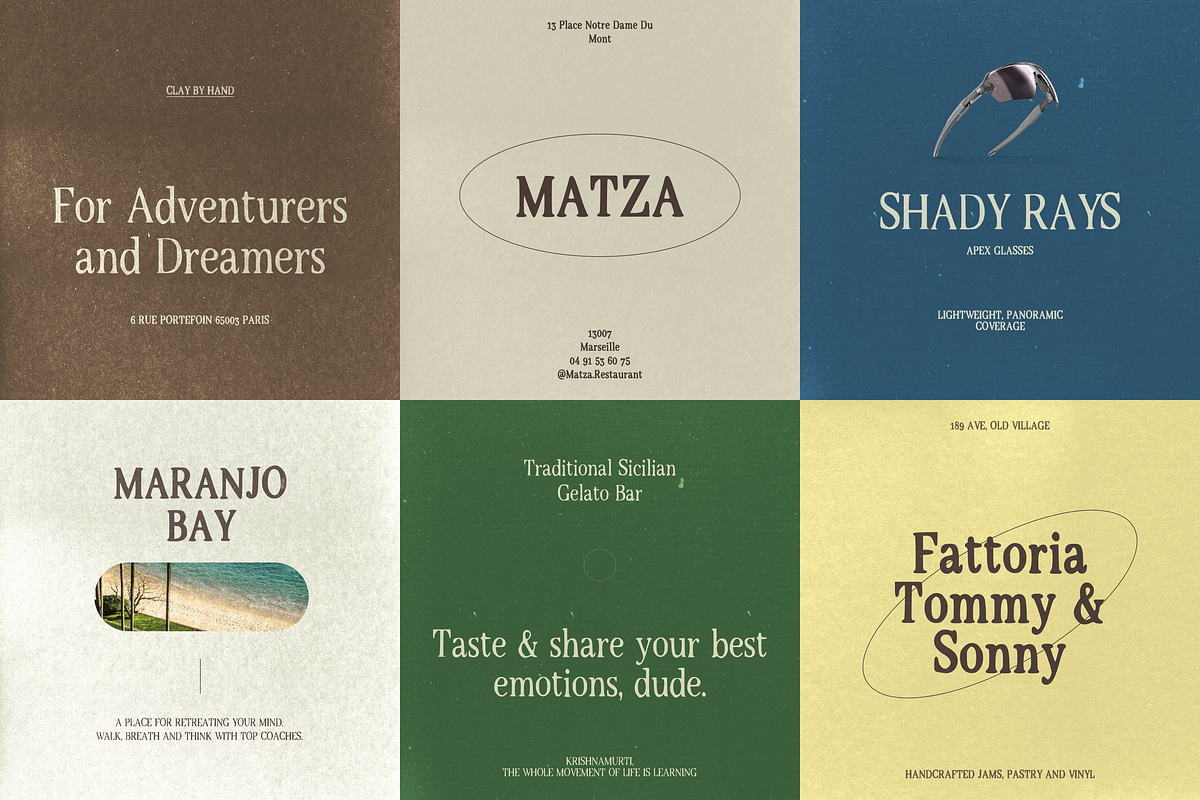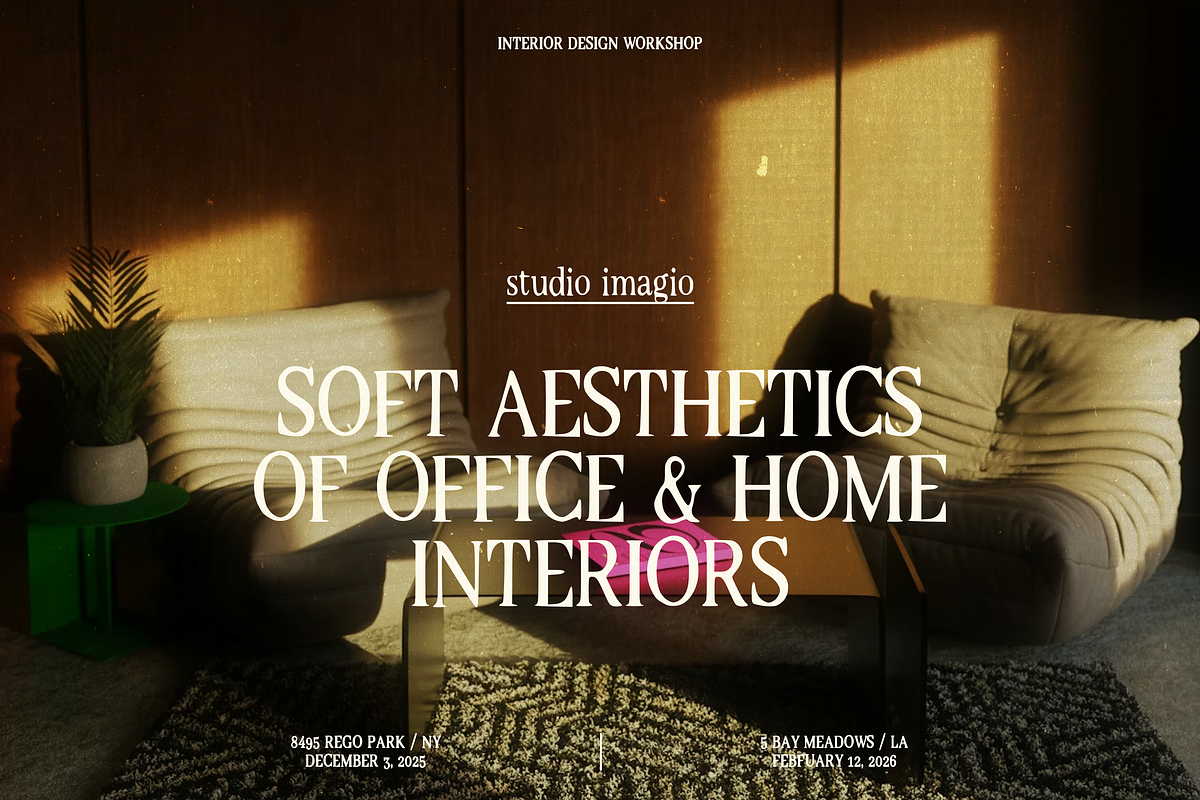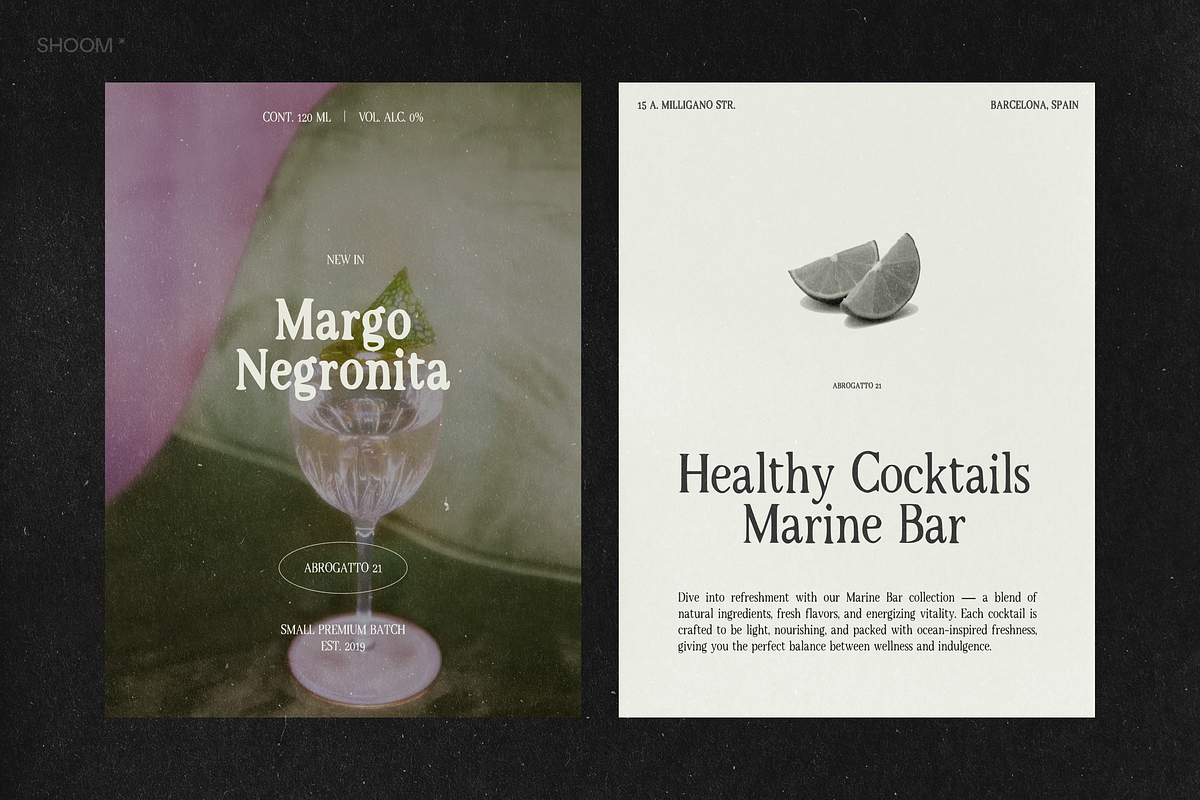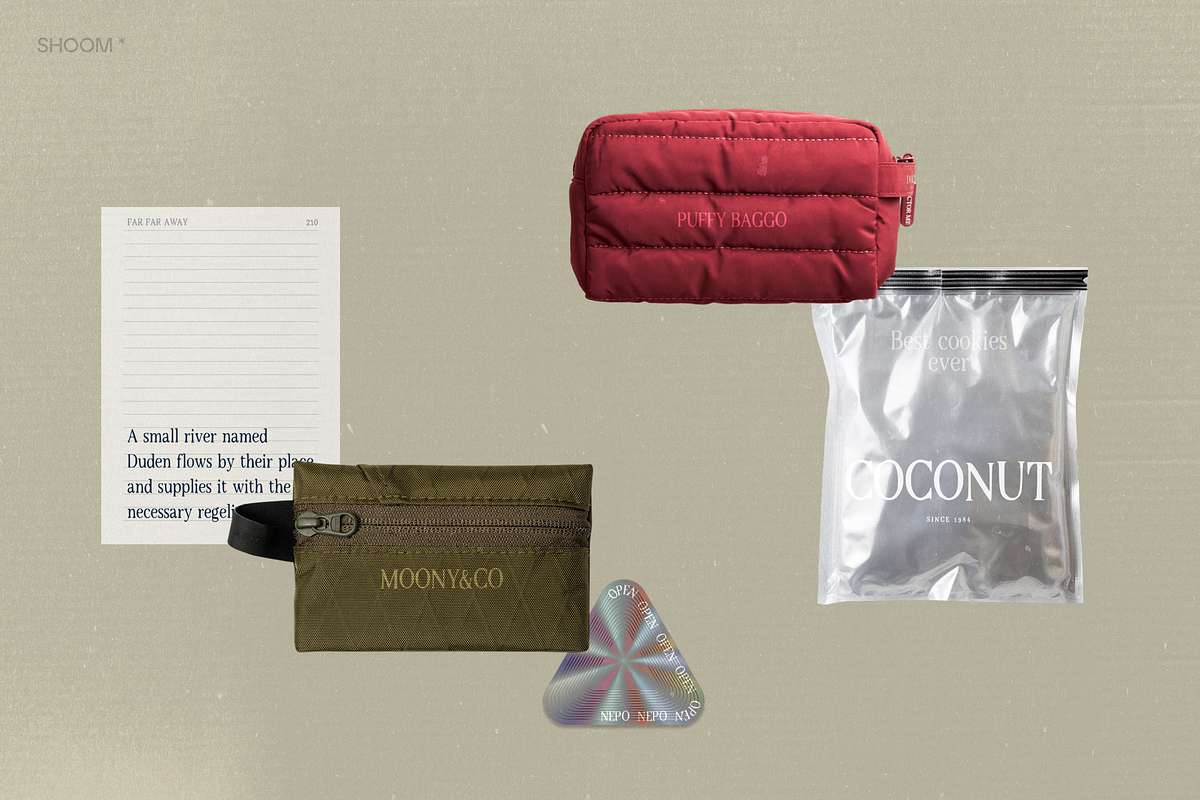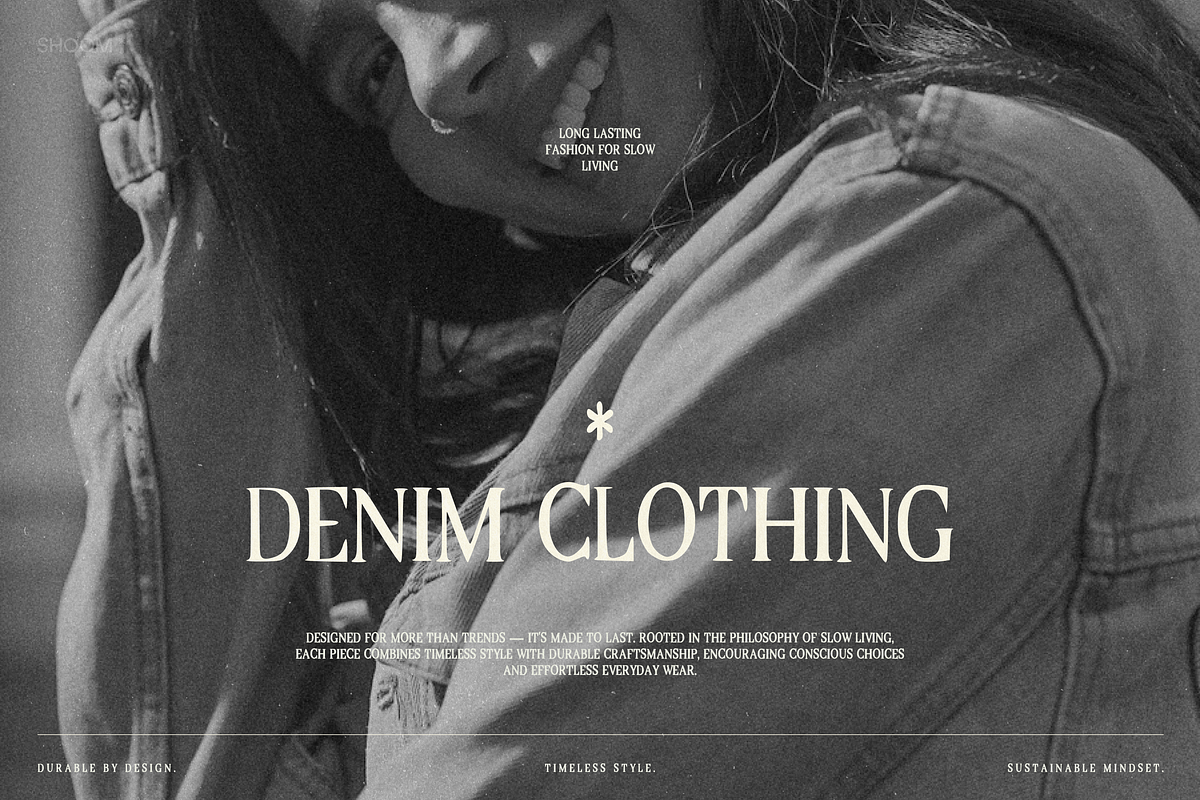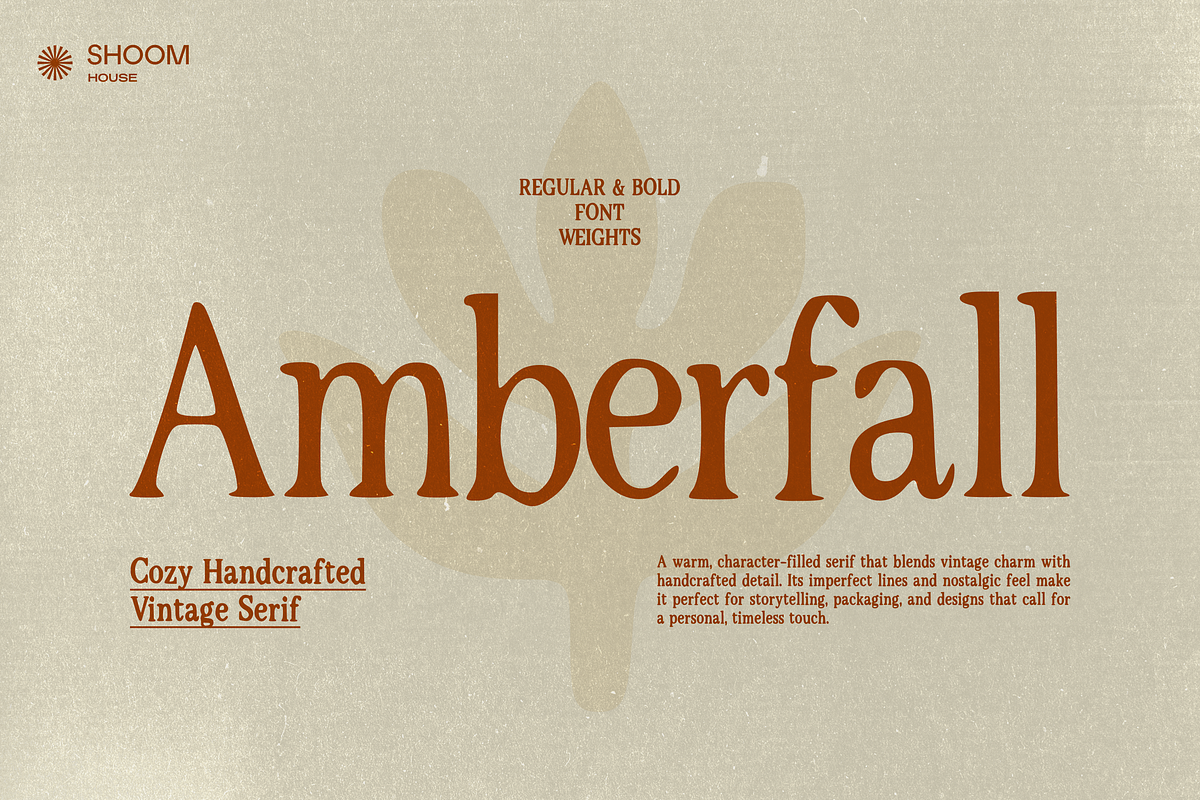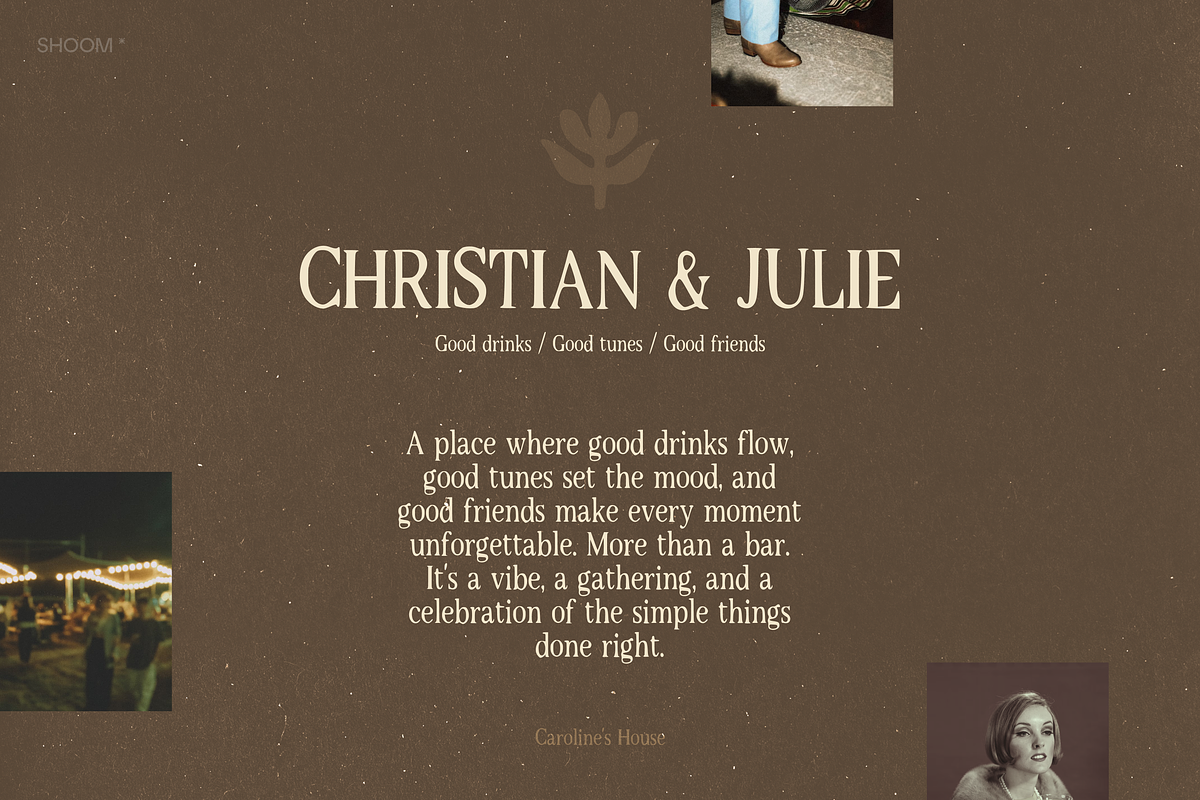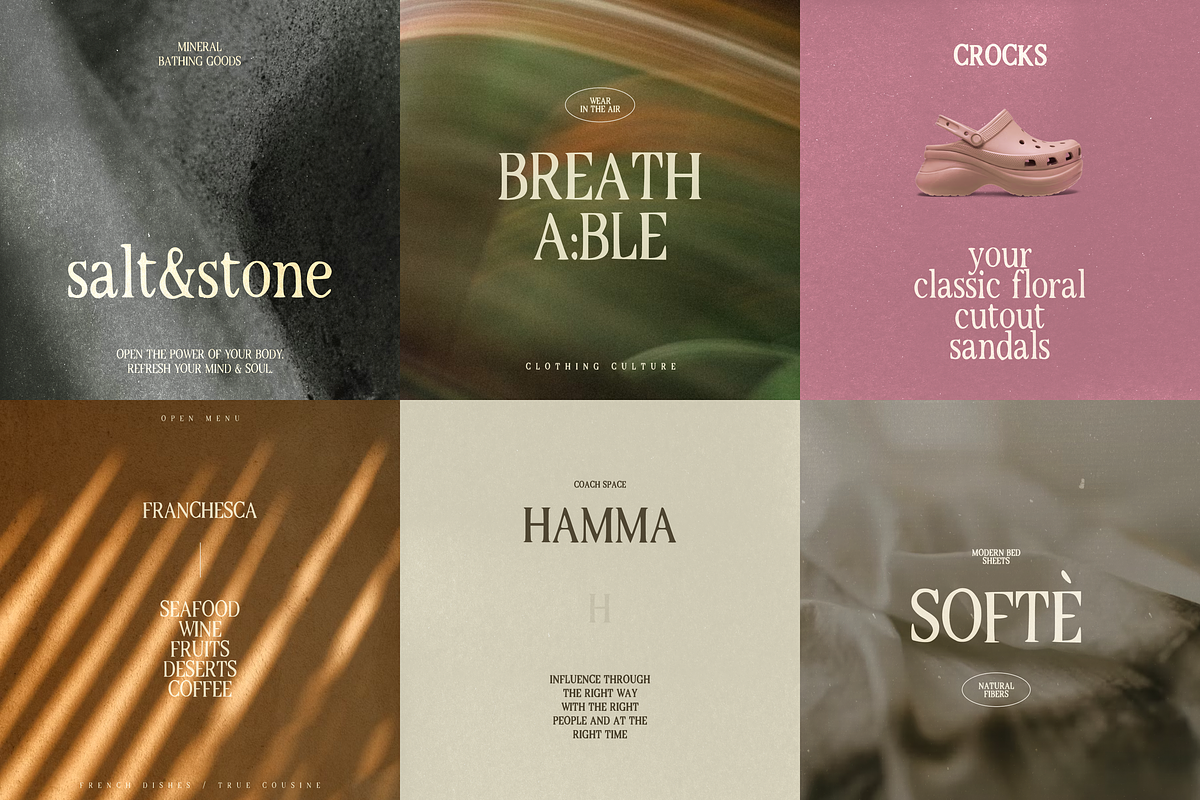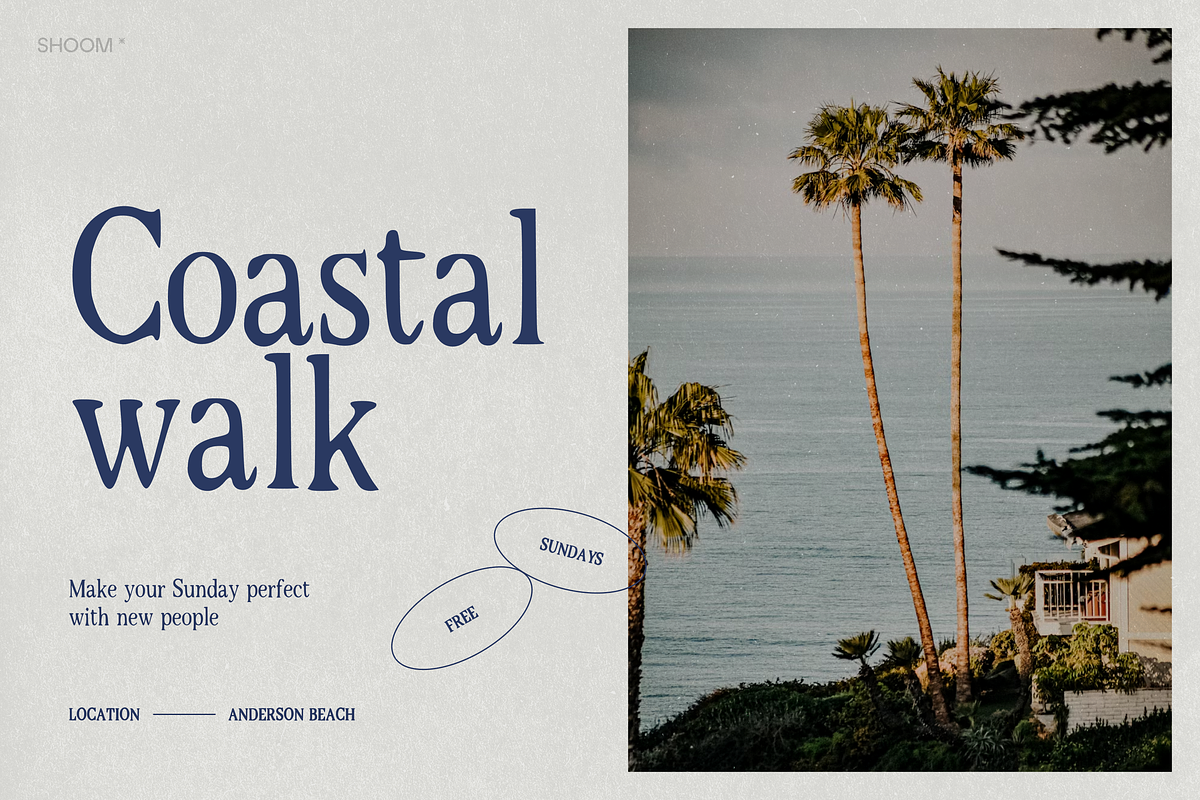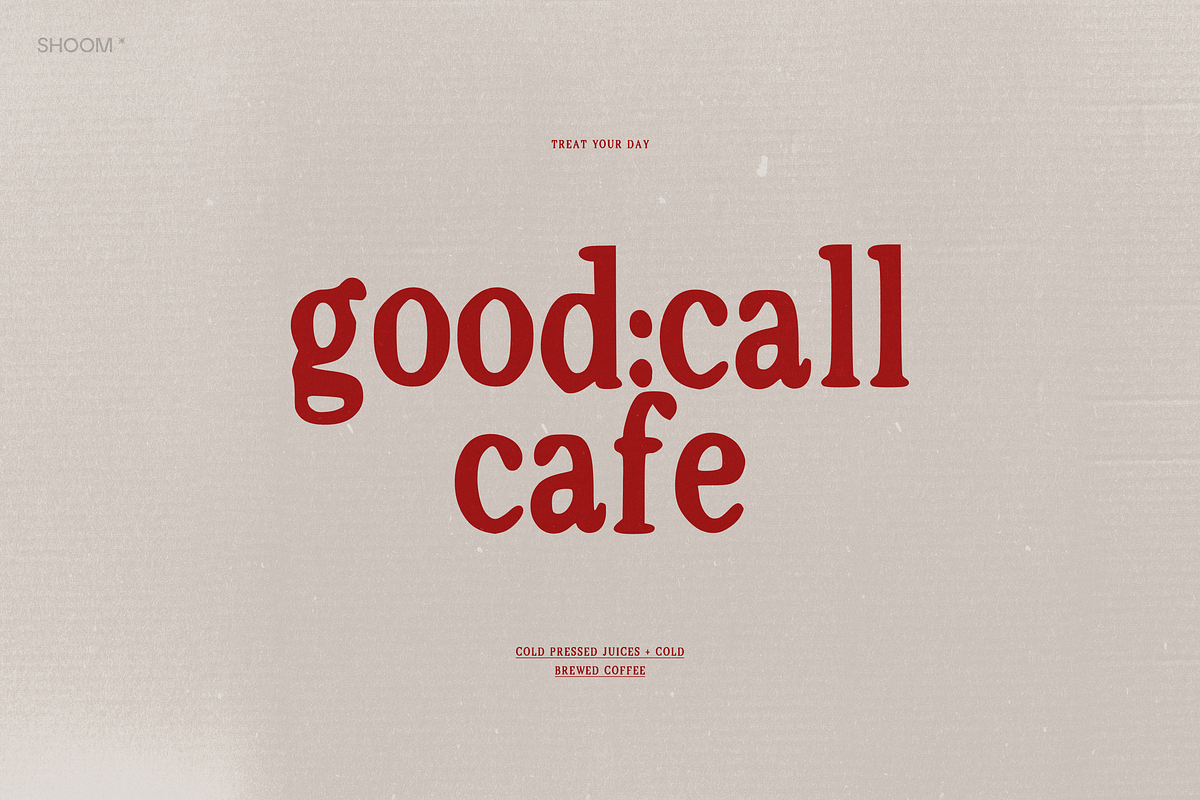
Amberfall - Cozy Vintage Serif
✽ Meet cozy handcrafted vintage serif, where classic charm meets modern warmth.
Rooted in the charm of old prints and handmade textures, this serif brings stories to life with warmth and quiet sophistication. Its imperfect lines and nostalgic feel make it perfect for storytelling, packaging, and designs that call for a personal, timeless touch.
✽ FONT FEATURES
- Family includes: Regular + Bold fonts
- Uppercase & lowercase English alphabet
- Numbers & punctuation symbols